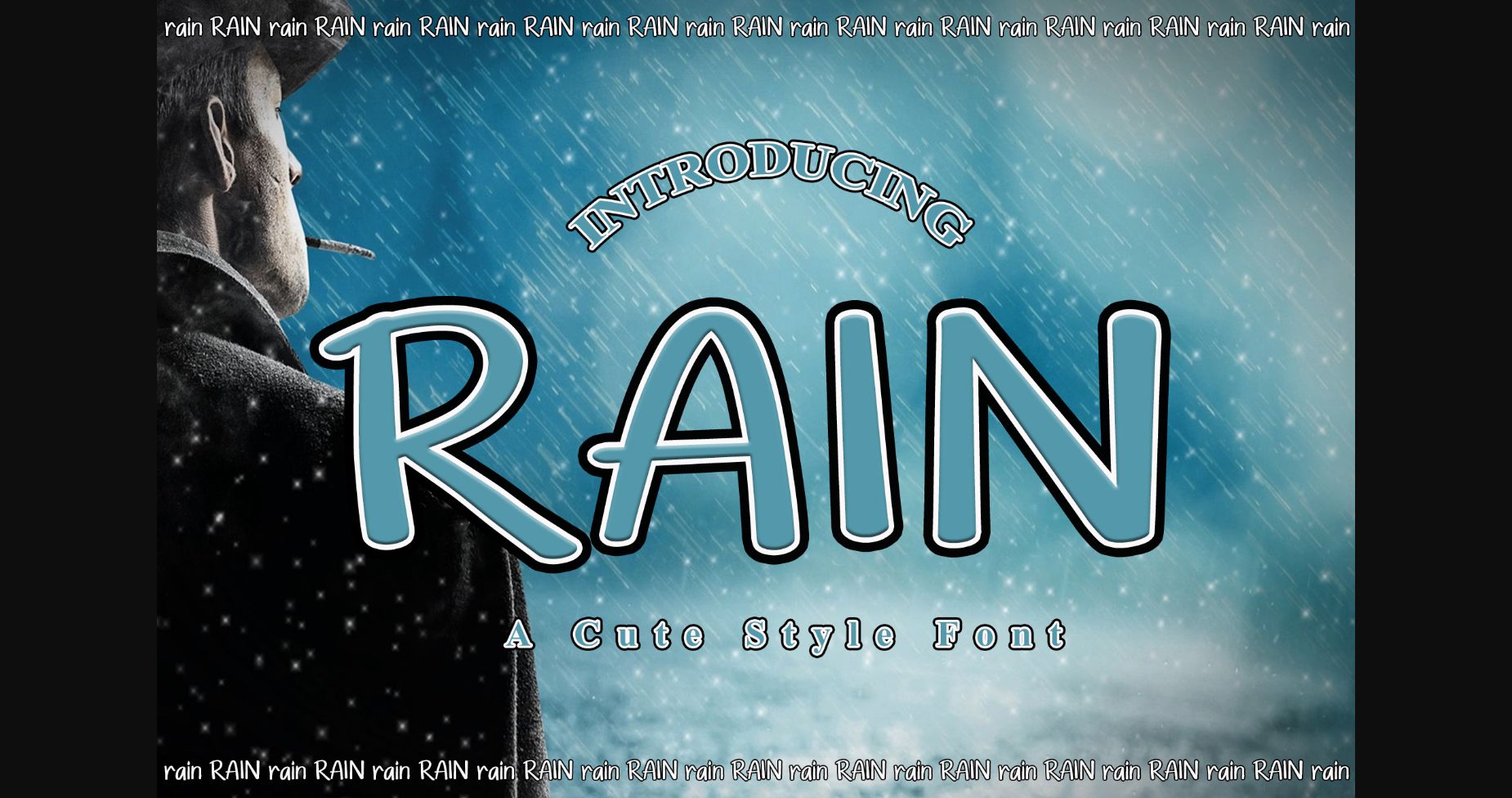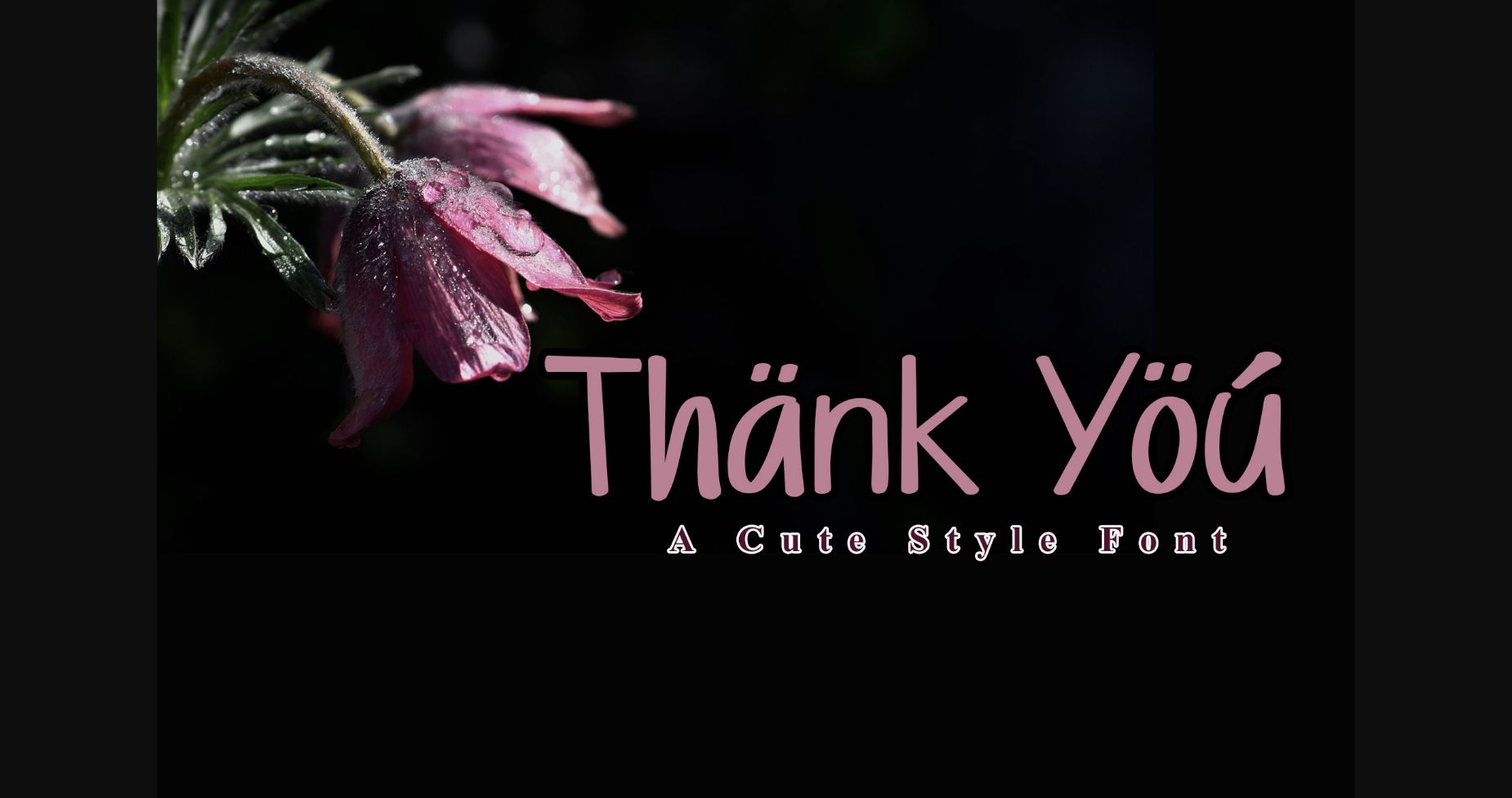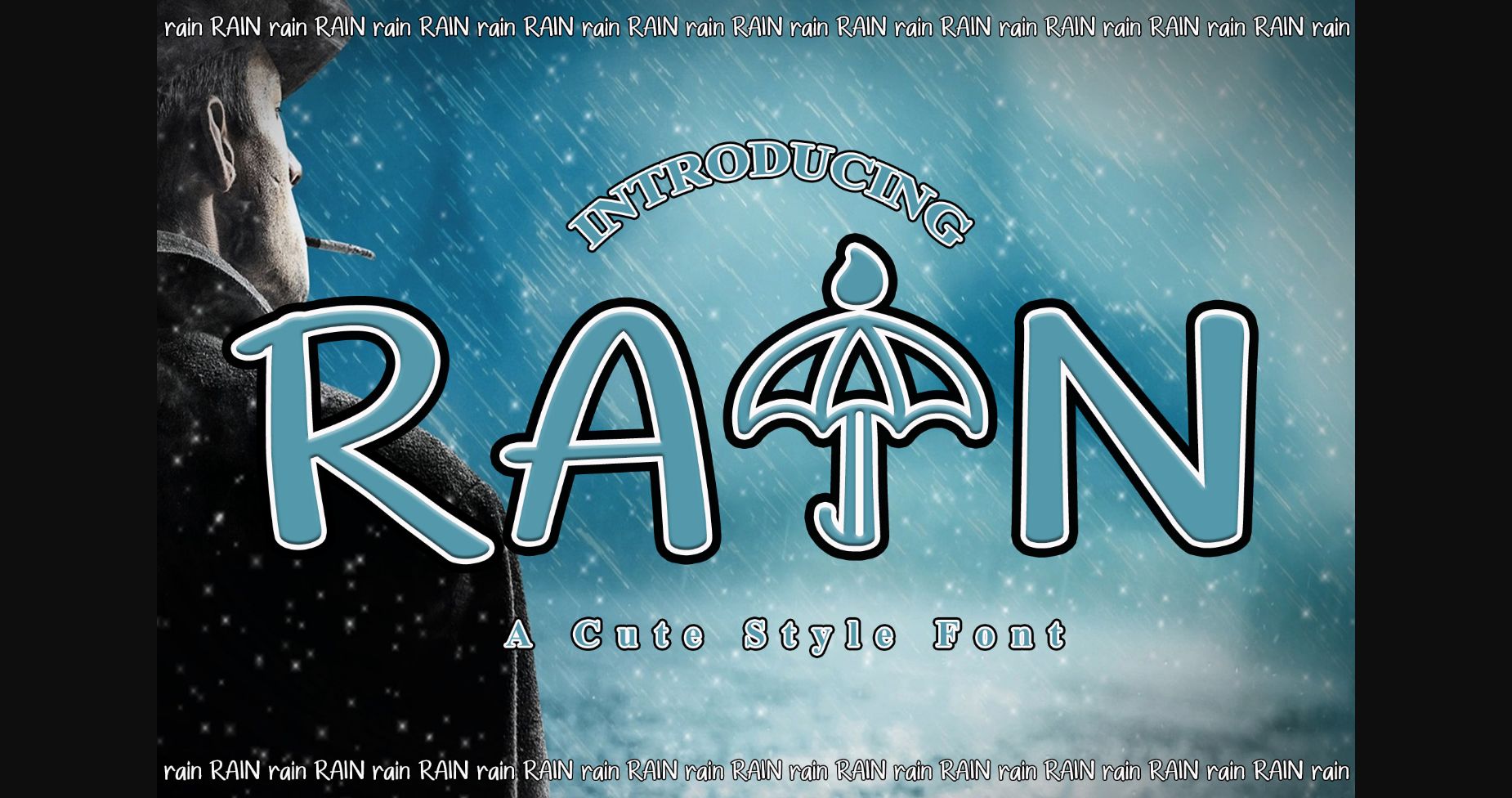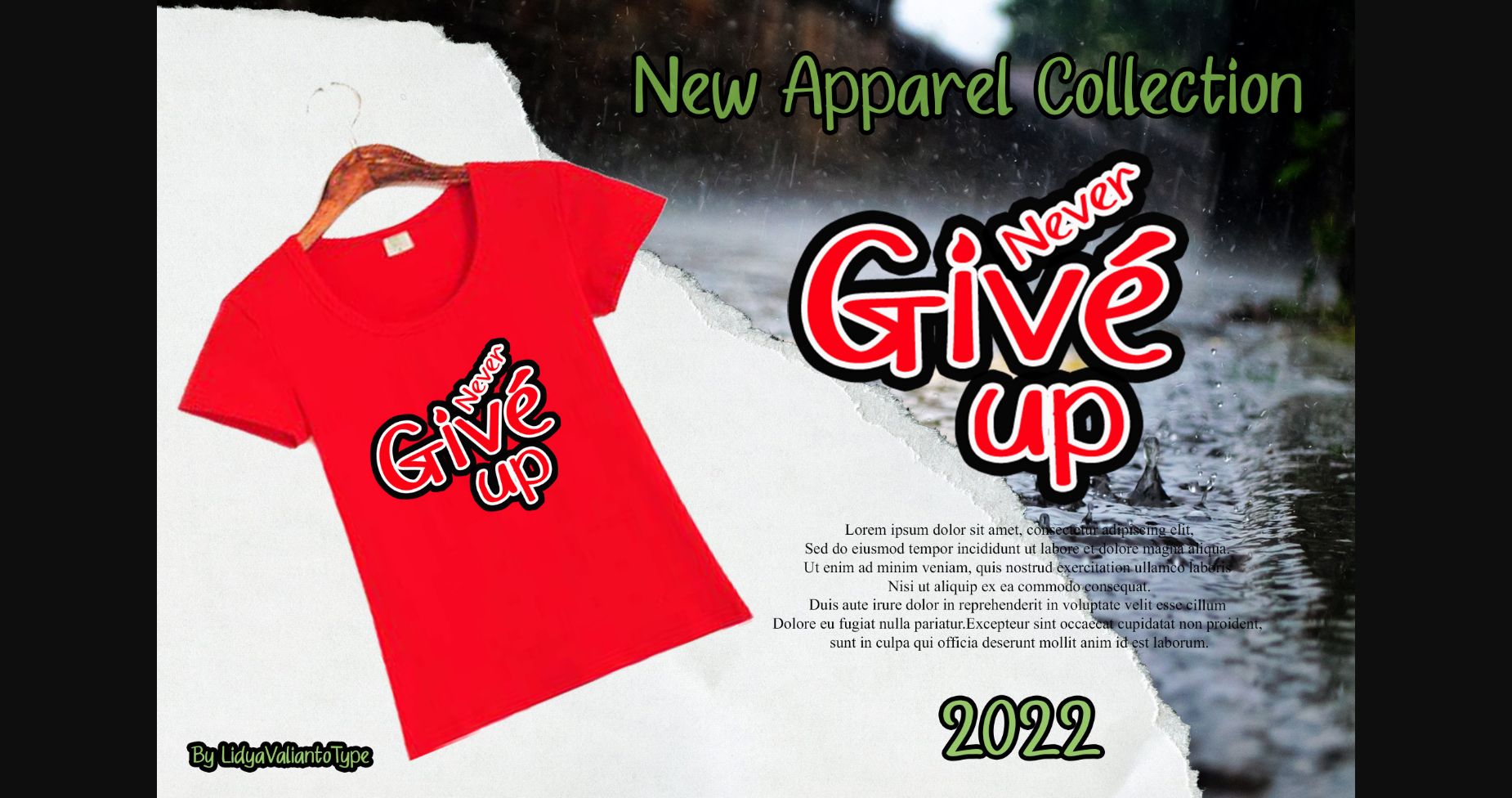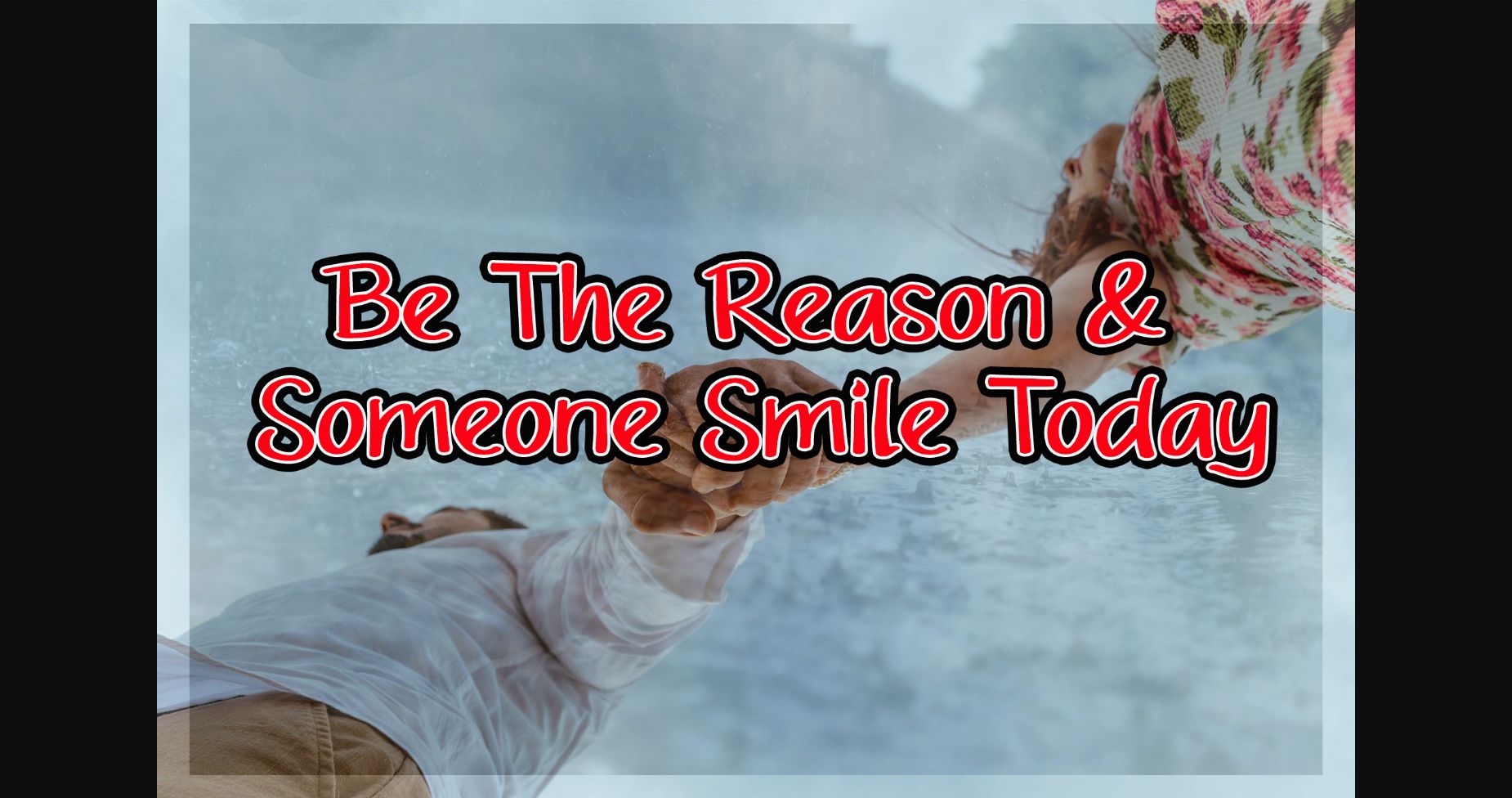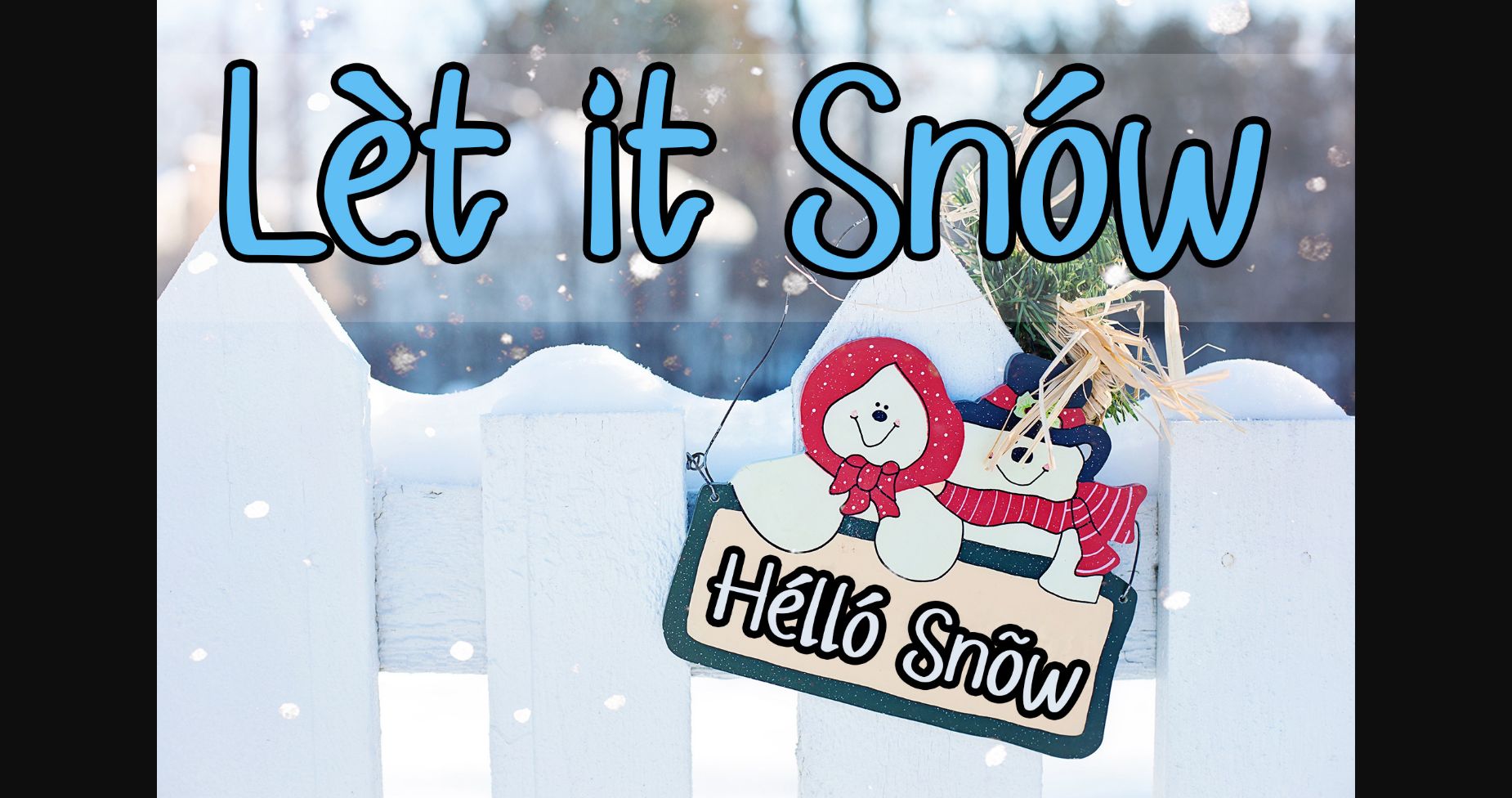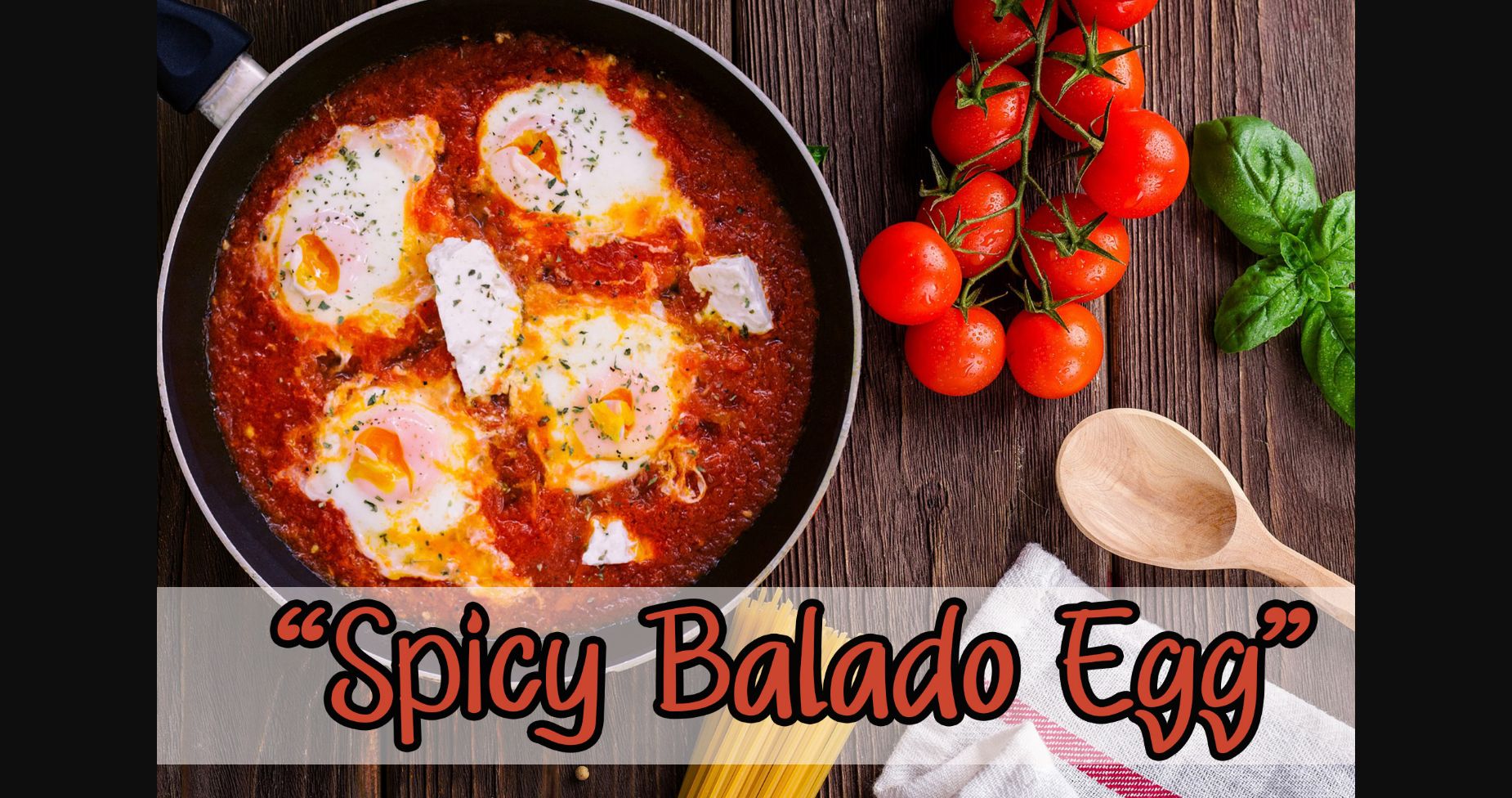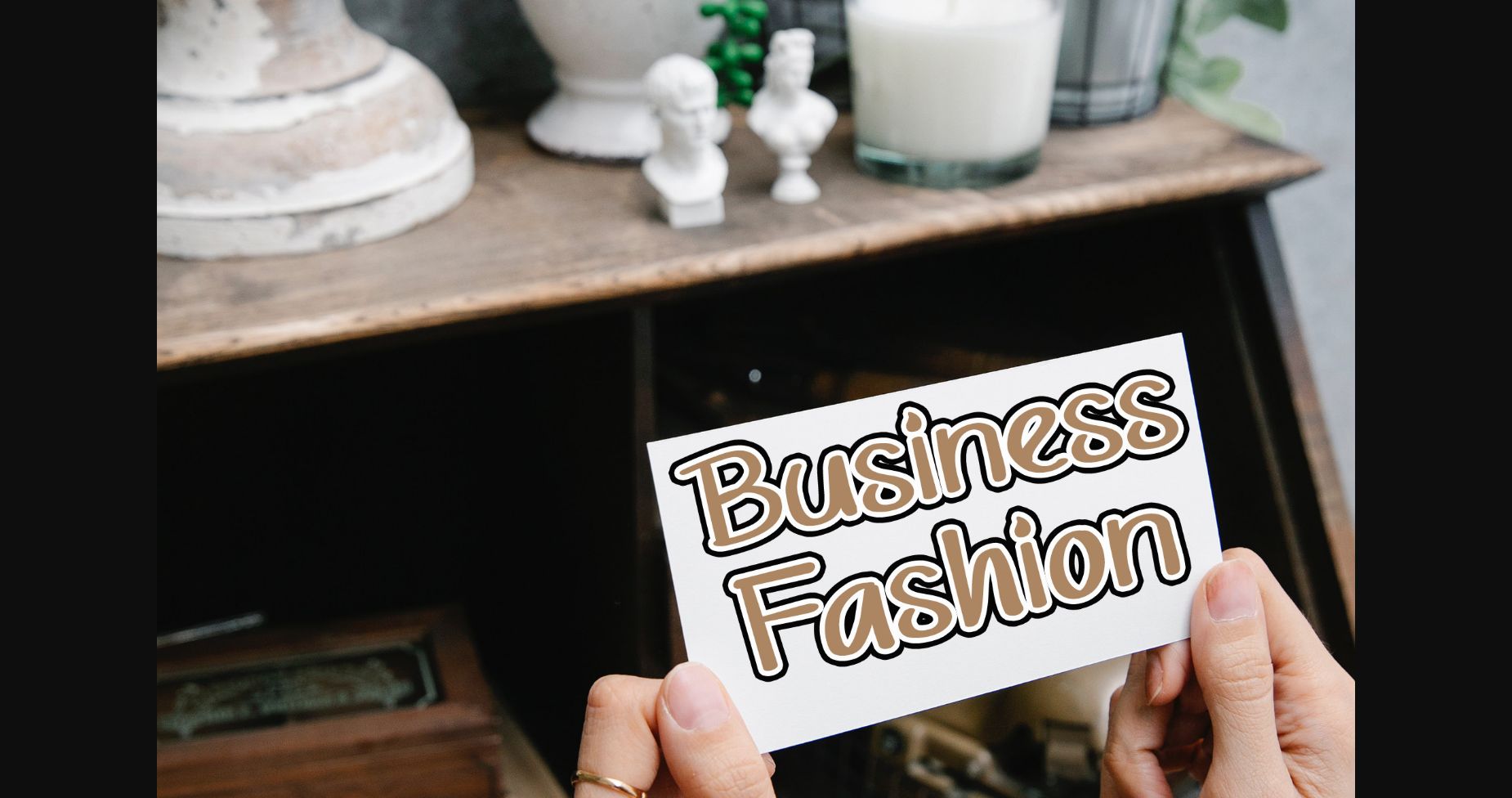
Rain Font
About Rain Font
Rain is a cute and style font. , no matter the occasion. It comes with multilingual support, so you can use this font to reach a global audience. Whether you’re working on a website, branding materials, or marketing campaigns, this font is sure to become a go-to in your design toolkit.